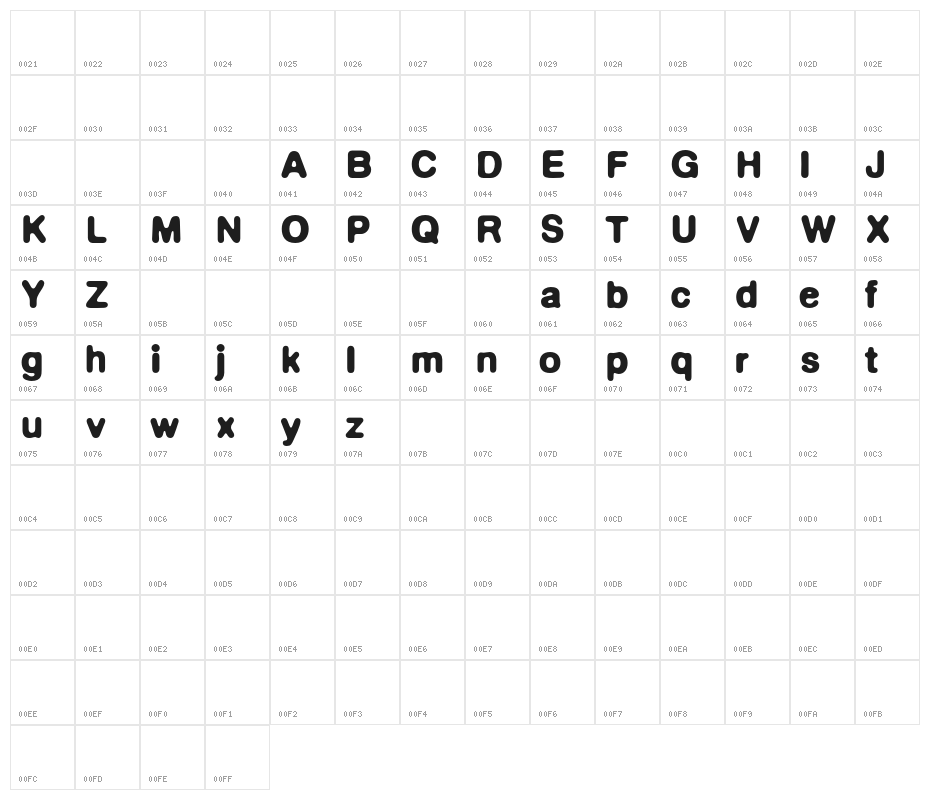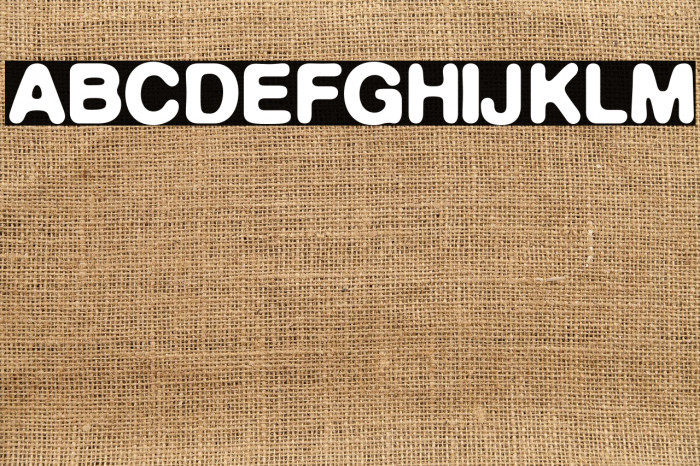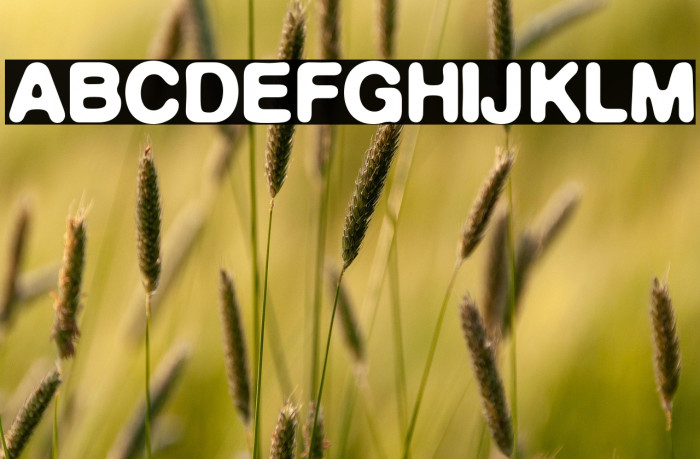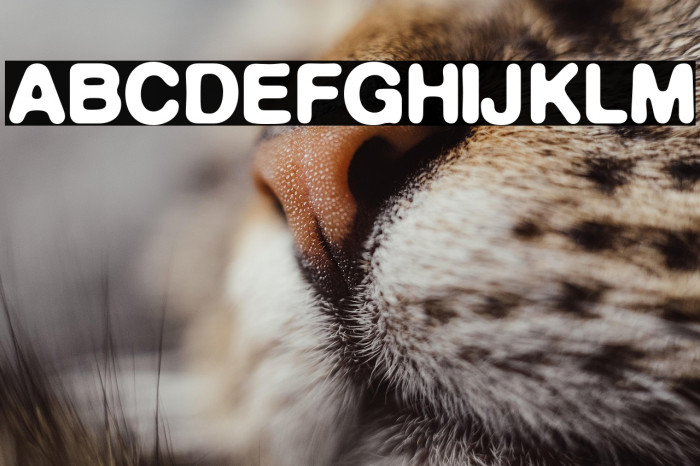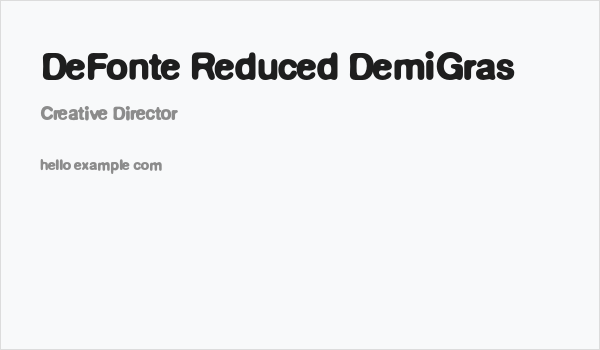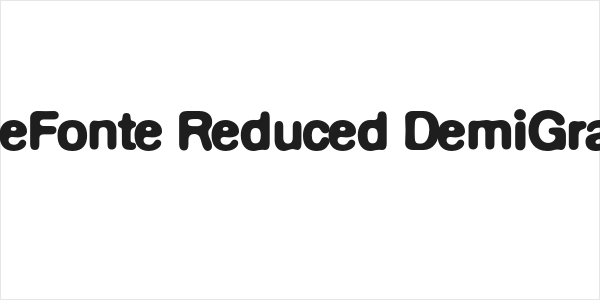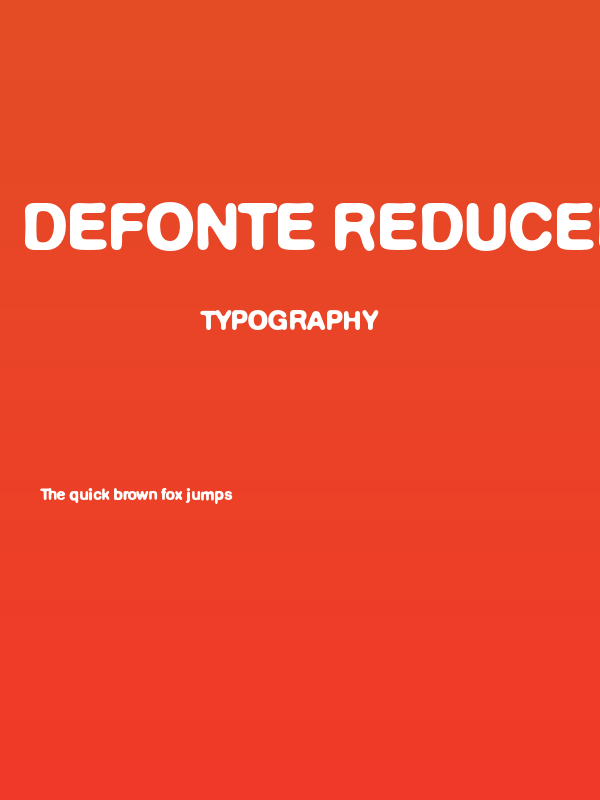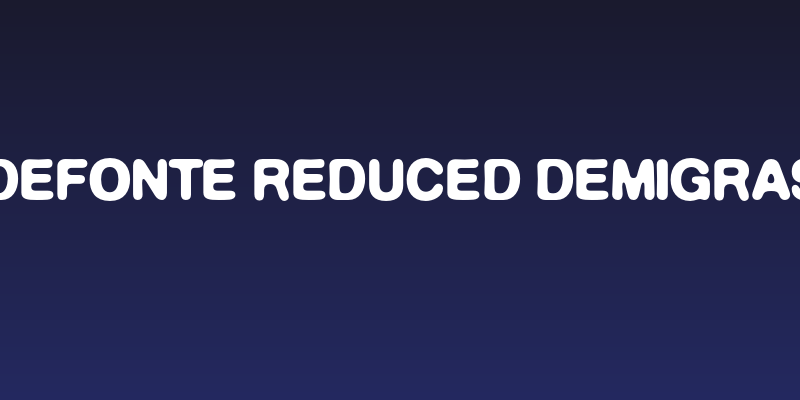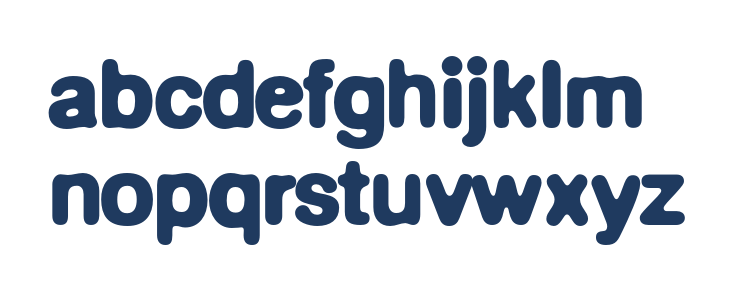
DeFonte Reduced DemiGras Font
DeFonte Reduced DemiGras Description
This font features bold, rounded characters that convey a playful and approachable aesthetic. The letters are uniformly thick, with smooth curves and a consistent stroke width that gives it a cohesive look. The rounded edges soften the overall appearance, making it suitable for friendly and informal designs. The uppercase and lowercase letters maintain a similar width, providing a balanced and harmonious feel. The font's simplicity and clarity make it easy to read, even at smaller sizes, while its boldness ensures it stands out in larger displays.
| Proposed Projects | Ideal for children's books, playful branding, casual invitations, and social media graphics. |